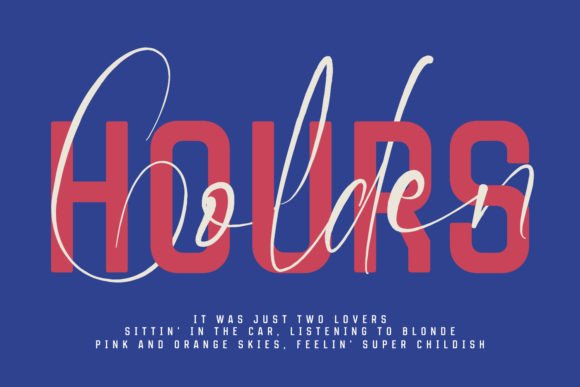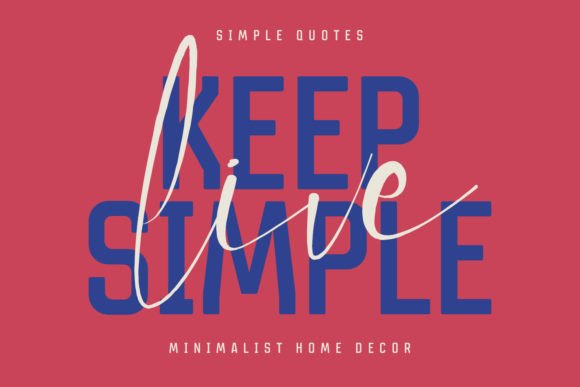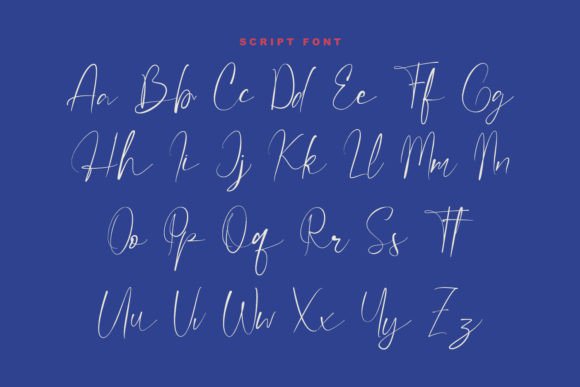
Introduction to Sains Font
Give your designs an authentic brush-handcrafted feel.
β€œ Sains” is perfectly suited to signature, stationery, logo, typography quotes, website header, branding, and more .
Key Features of Sains Font
Why Choose Sains Font?
Sains Font offers exceptional quality and versatility, making it a valuable addition to your design toolkit. Whether you’re creating for personal projects or commercial use, Sains Font delivers professional results.